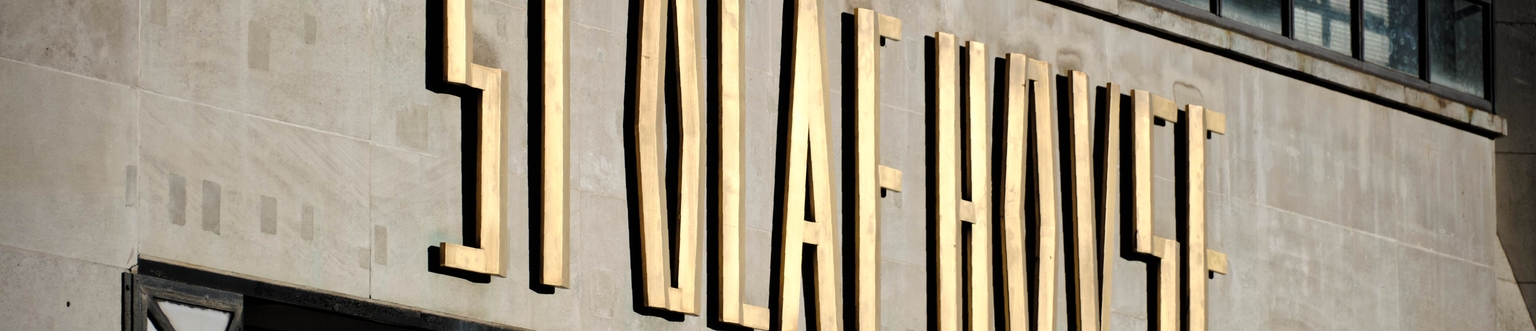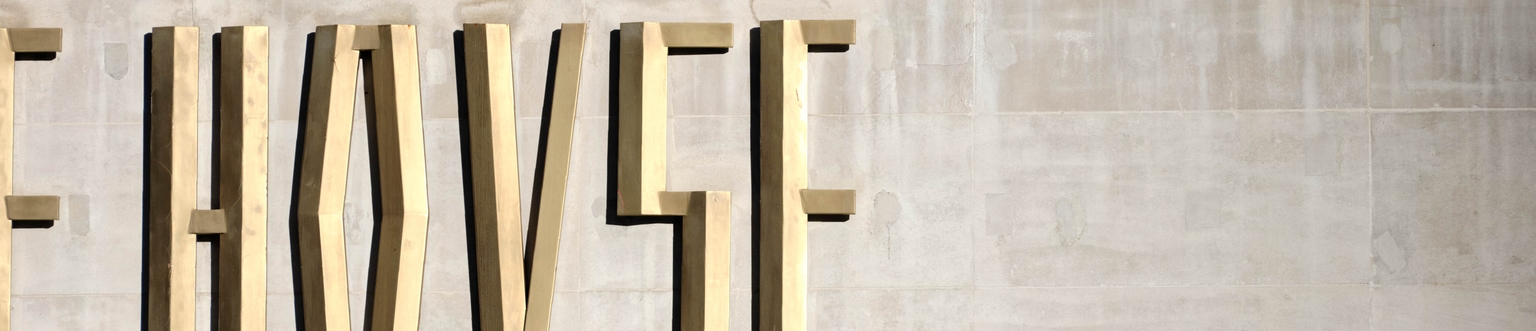
Olaf
- Regular
- Noon
- Dusk
- Night
Olaf is a modular, condensed type family designed by David Quay and Ramiro Espinoza, inspired by the beautiful three-dimensional lettering on the façade of St Olaf House in London’s Borough of Southwark. The building’s distinctive architectural signage—with its sharp relief and forms that are reminiscent of runic letterforms—provided the foundation for a contemporary reinterpretation that preserves the clarity and depth of the original design.
The Olaf family consists of four styles: a standard Regular font and three beveled, shadowed color fonts—Noon, Dusk, and Night—each offering a different palette and distinct visual tone. These styles maintain a consistent modular framework while allowing for expressive variations in texture and impact.
Carefully developed for modern typographic needs, Olaf is well suited for websites, logos, posters, signage, visual identities, editorial design, and digital applications that benefit from condensed proportions and a strong architectural presence.